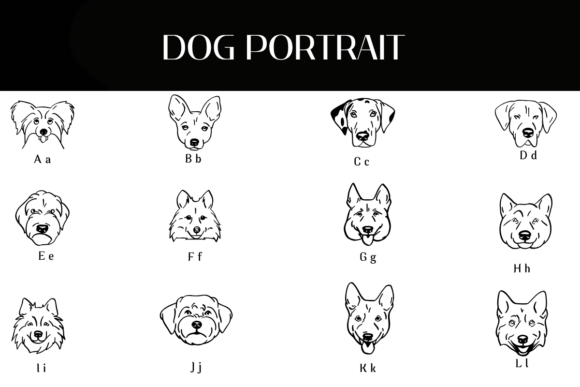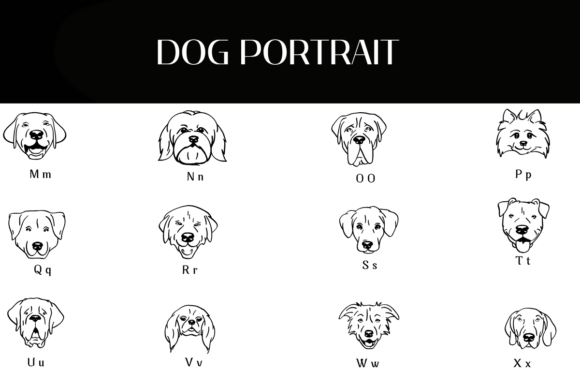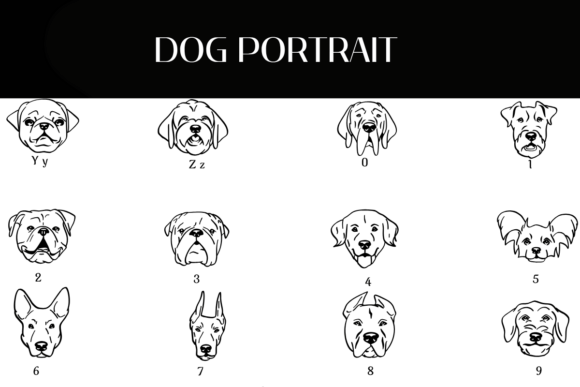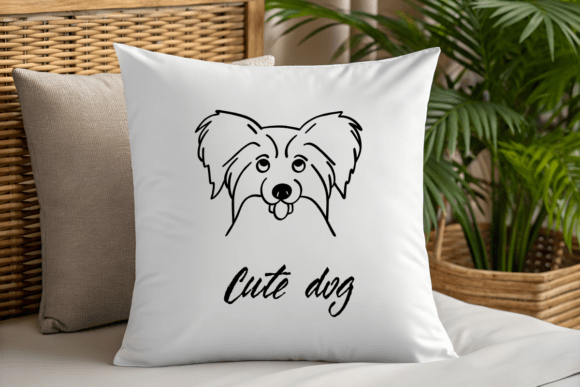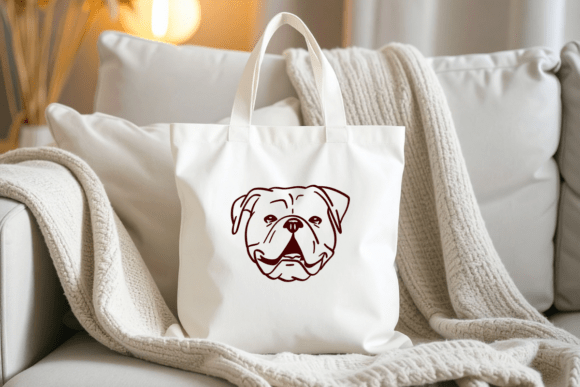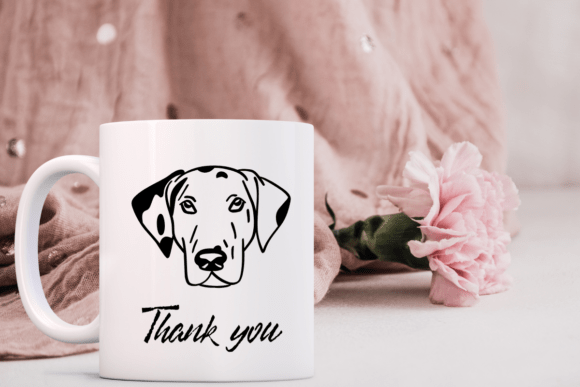
Unleash Your Creativity with Dog Portrait Font: A Cute Dingbats Font
Are you a designer, crafter, or DIY enthusiast looking for a unique and adorable font to add a personal touch to your projects? Look no further than the Dog Portrait Font, a delightful dingbats font that’s sure to bring a smile to your face. In this article, we’ll dive into the world of Dog Portrait Font, exploring its features, uses, and benefits, as well as provide tips on how to make the most of this charming font.
What is Dog Portrait Font?
Dog Portrait Font is a type of dingbats font, which means it’s a collection of symbols, icons, and illustrations designed to resemble a hand-drawn or handwritten style. This font is specifically designed to feature adorable dog portraits, each one meticulously crafted to capture the unique personality and charm of our canine friends.
Features of Dog Portrait Font
- Cute and Playful Designs: The Dog Portrait Font boasts an array of endearing dog portraits, each one bursting with personality and whimsy.
- Versatile: The Dog Portrait Font can be used for a wide range of projects, from digital designs to print materials, and even craft projects like scrapbooking and card-making.
Uses of Dog Portrait Font
The Dog Portrait Font is perfect for a variety of creative projects, including:
- Graphic Design: Add a personal touch to your graphic designs, such as logos, brochures, and social media graphics.
- Scrapbooking: Create adorable scrapbook pages featuring your favorite dog breeds or memories of your own furry friends.
- Card-Making: Design custom greeting cards, invitations, and gift tags with a personal and playful touch.
- Digital Art: Use the Dog Portrait Font to create stunning digital art, such as illustrations, paintings, and mixed media projects.
In conclusion, the Dog Portrait Font is a delightful and versatile dingbats font that’s perfect for designers, crafters, and DIY enthusiasts. With its cute and playful designs, ease of use, and high-quality images, this font is sure to bring a touch of personality and whimsy to your creative projects. So why not give it a try and see the amazing results for yourself?